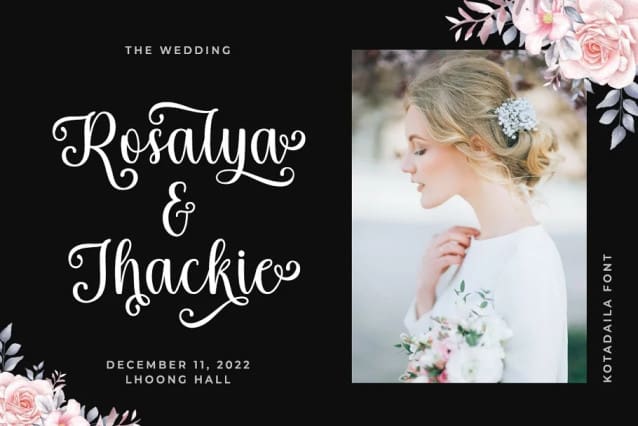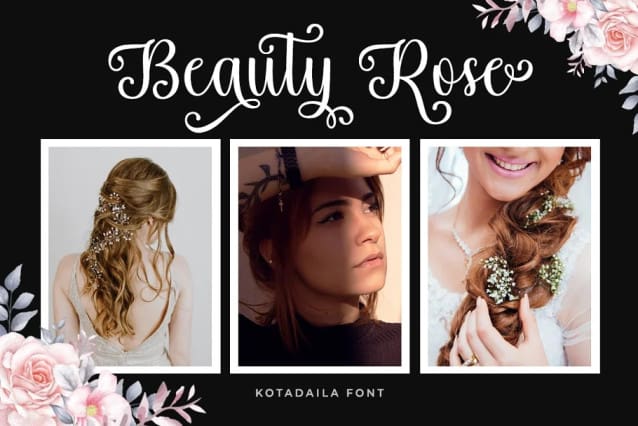
Kotadaila Font
Kotadaila Font is a Script Font that includes a complete set of uppercase and lowercase letters, multilingual symbols, numbers, punctuation, alternatives and ligatures. This font has a Modern Elegant Style, perfect for branding, logos, invitations, masterheads and more. Kotadaila features OpenType style alternatives, International binders and support for most Western Languages included. To enable the OpenType Stylistic alternative, you need a program that supports OpenType features such as Adobe Illustrator CS, Adobe Indesign & CorelDraw X6-X7, Microsoft Word 2010 or later.